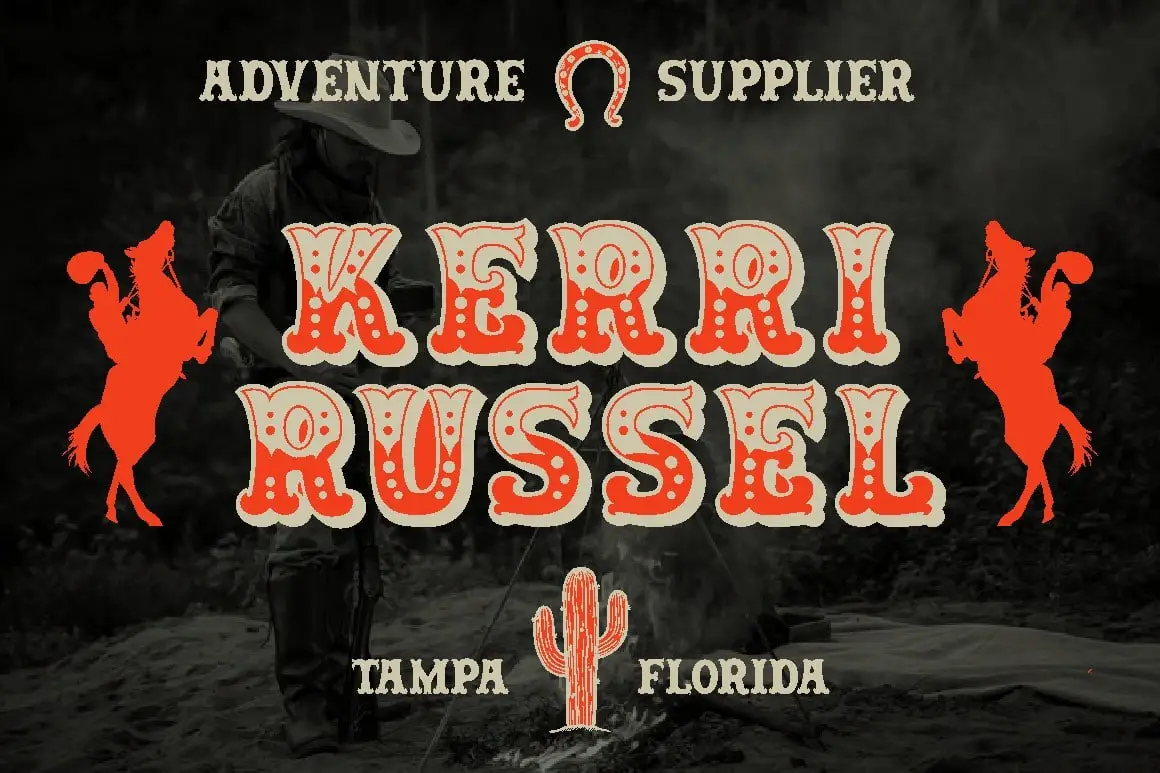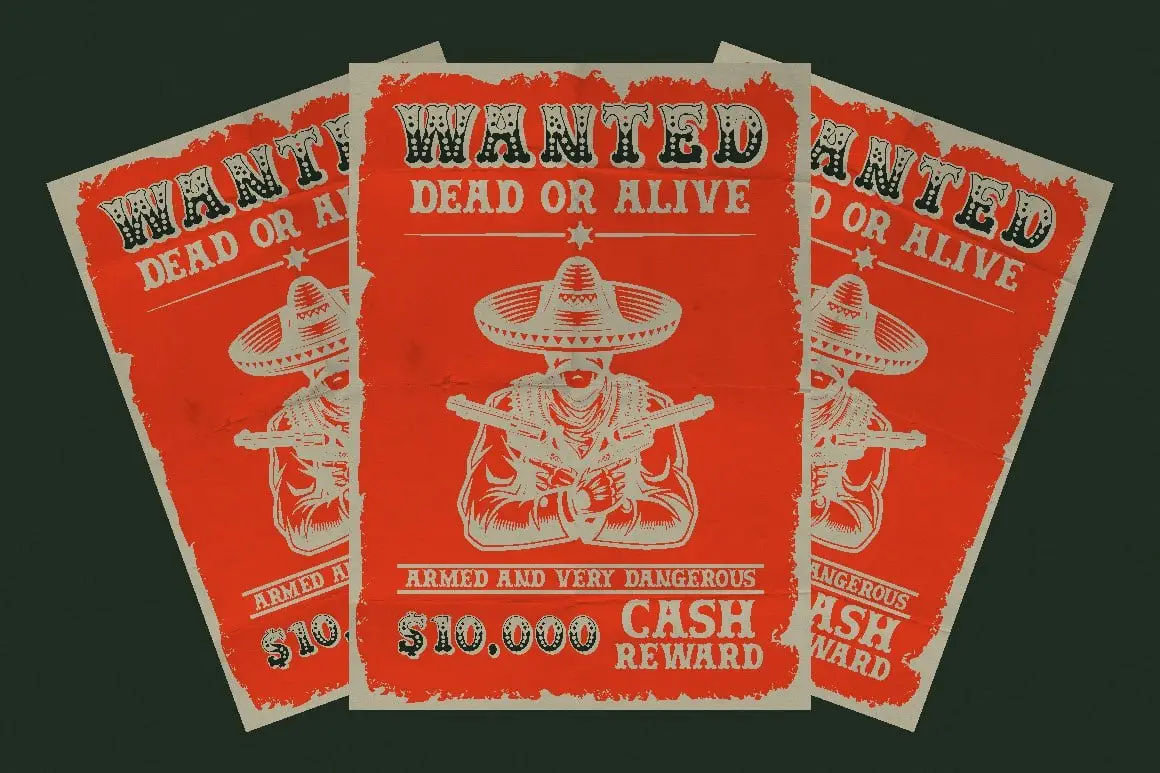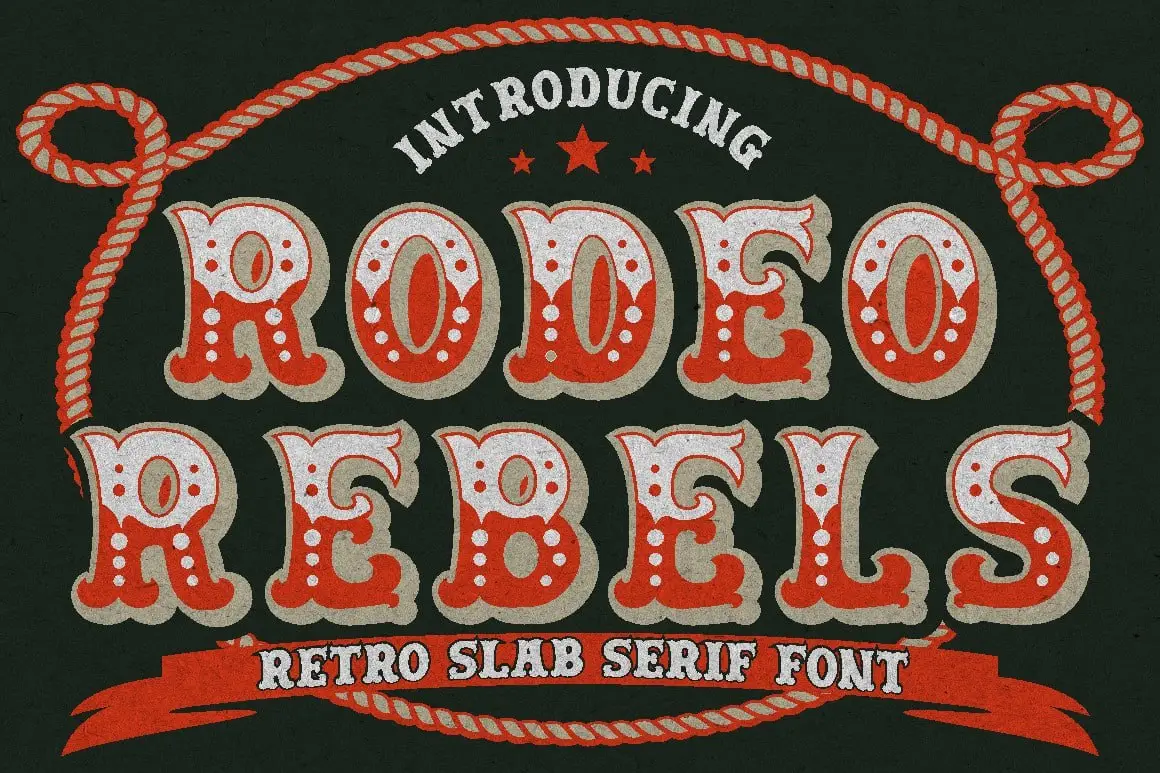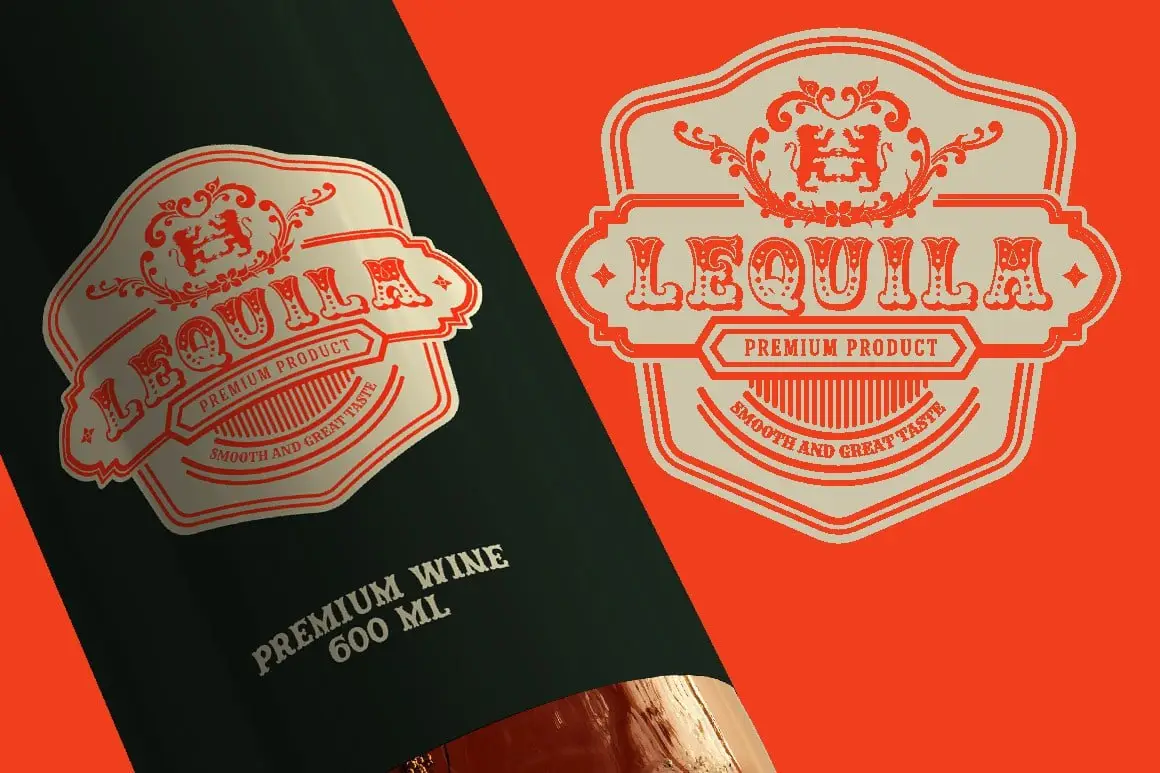
Rodeo Rebels Font By Putracetol Studio
Introducing the Rodeo Rebels Font by Putracetol Studio, a unique typeface that captures the spirit of the wild west. This font features a bold and adventurous design, making it perfect for a variety of creative projects.
• Stylish and bold lettering
• Uppercase and lowercase characters
• Style: Display, Western